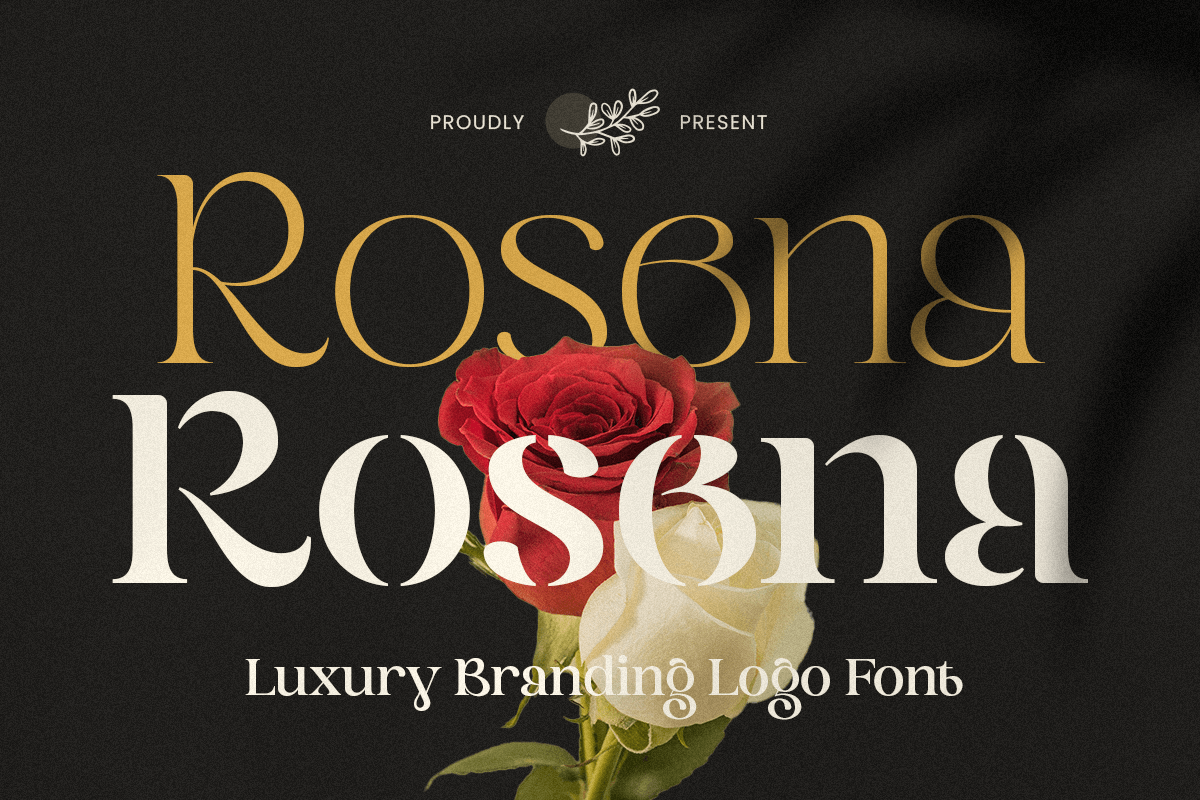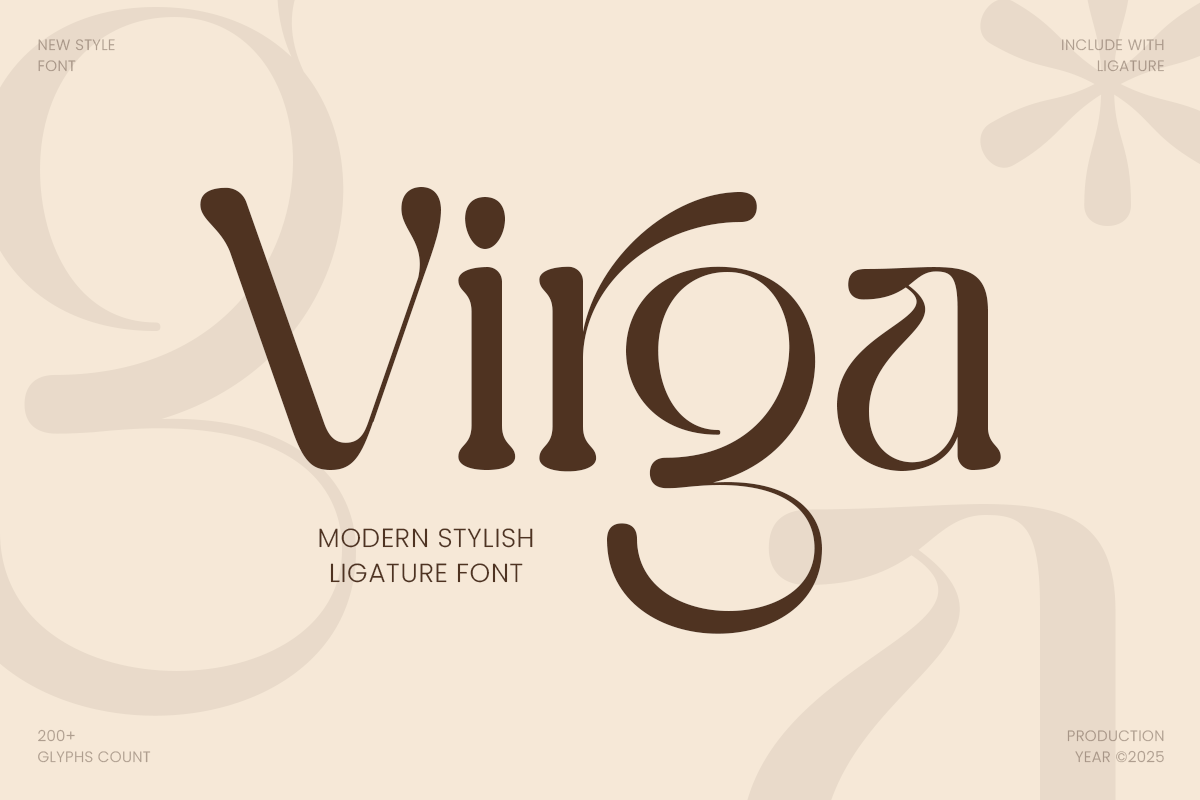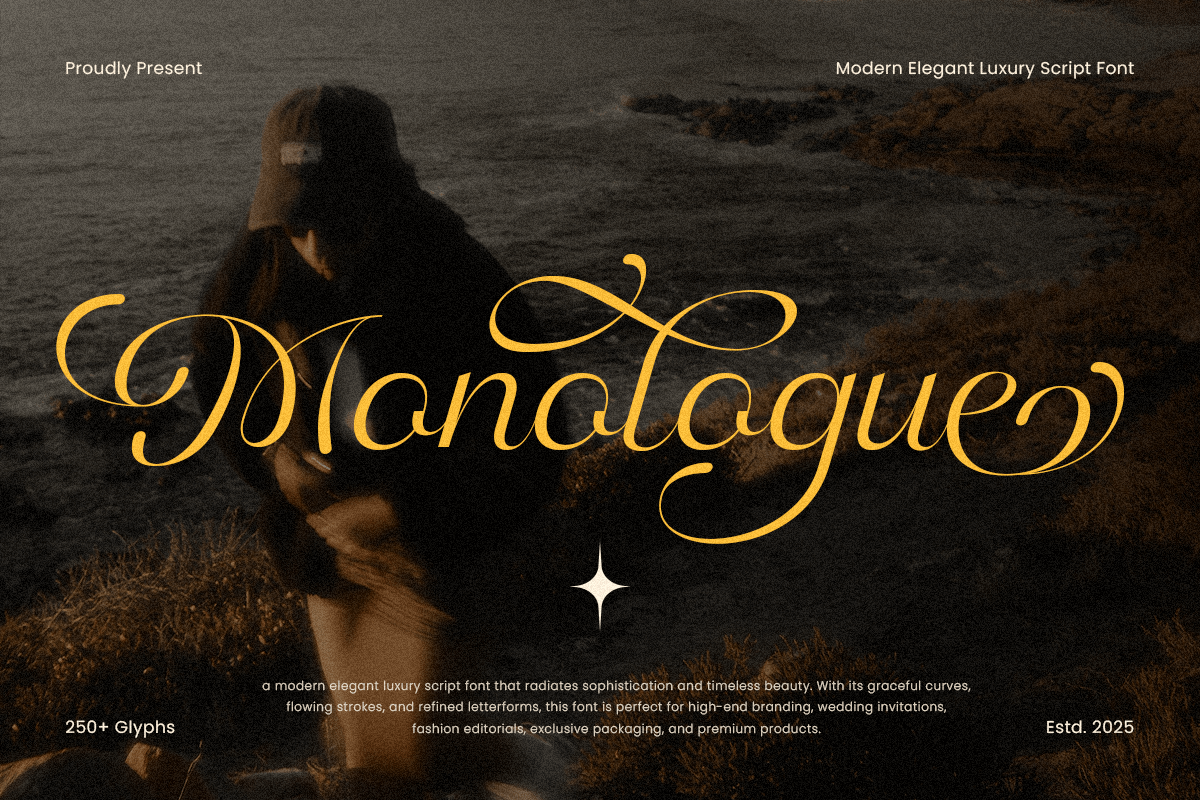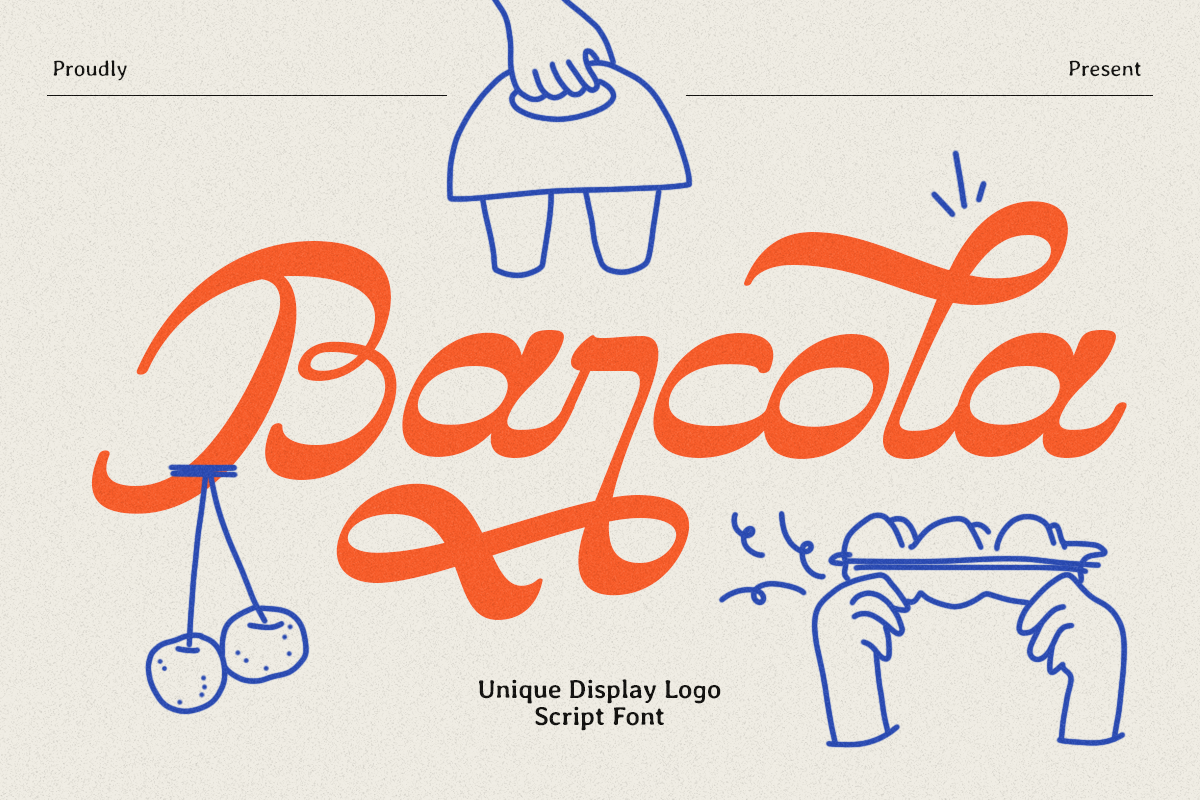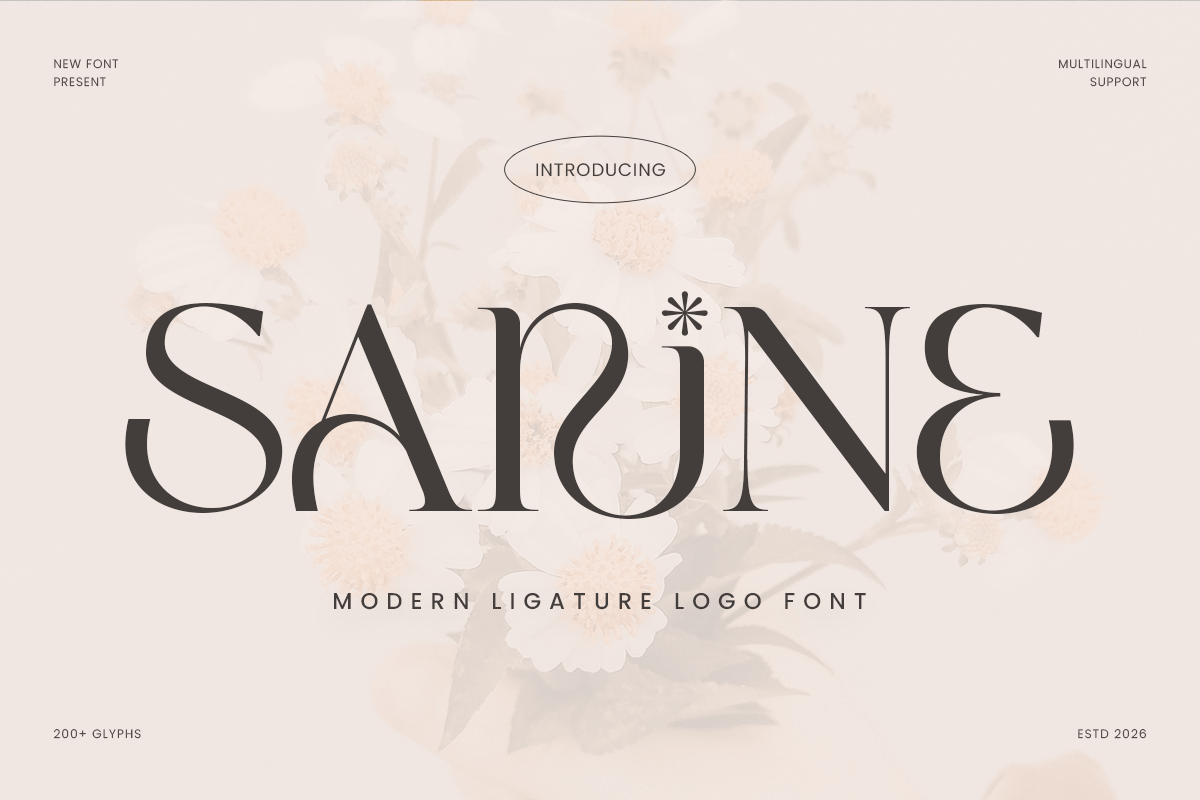
Best Script Fonts for Invitations and Packaging
Discover the best script fonts for invitations and packaging, including elegant options for wedding stationery, beauty labels, perfume branding, and boutique product design.
Best Script Fonts for Invitations and Packaging
The best script fonts for invitations and packaging combine elegance, readability, and personality. They are popular for wedding invitations, beauty labels, perfume boxes, gift tags, boutique branding, and premium product packaging because they create a refined handwritten look. When chosen carefully, a script font can make a design feel more personal, luxurious, and memorable without sacrificing clarity.
Script fonts are especially effective when you want typography to carry emotion. In invitations, they add romance, grace, and a sense of occasion. In packaging, they create a signature-style identity that feels premium and expressive. Whether you are designing wedding stationery, product labels, or luxury branding materials, the right script font can instantly elevate the entire visual system.
What Makes a Good Script Font for Invitations and Packaging?
Not every script font works well in real design applications. The best script fonts for invitations and packaging need more than beauty alone. They should also support readability, balance, and flexibility across print and digital layouts.
A strong script font usually offers:
• smooth strokes and graceful rhythm
• enough detail to feel expressive without becoming hard to read
• clean spacing for names, titles, and short phrases
• good visual pairing with serif or sans serif fonts
• a tone that matches the brand or event mood
For invitations, script fonts work best when used for names, headings, monograms, or special lines. For packaging, they are often most effective for logos, product names, short descriptors, or premium signature details. In both cases, readability matters. A font may look beautiful in isolation but fail if it becomes too decorative at smaller sizes.
Why Script Fonts Work So Well for Invitations and Packaging
Script fonts bring a human touch to design. Their flowing lines and handwritten character can make a layout feel intimate, artistic, or luxurious. That is why they are widely used in wedding invitation design, feminine branding, perfume packaging, cosmetic labels, boutique boxes, and gift-oriented products.
For invitations, script fonts help communicate mood. A formal script can feel timeless and elegant. A softer handwritten script can feel warm and romantic. A bold modern script can feel stylish and fashion-forward.
For packaging, script fonts are often used to create distinction. They can turn a plain product label into something that feels custom, premium, and emotionally appealing. In highly visual categories like beauty, fragrance, gifts, and handmade products, script typography can strengthen both brand identity and shelf appeal.
Best Script Fonts for Invitations and Packaging
Below are several Sensatype Studio font options that work well for invitations, labels, branding, and packaging. Some lean more toward expressive script styling, while others bring a refined luxury-branding feel that still supports script-inspired presentation.
Barcola – Unique Display Logo Script Font
Barcola is a bold and expressive display script font designed to make typography feel distinctive and memorable. It has strong movement, confident strokes, and a handcrafted personality that helps designs stand out quickly.
Barcola is a strong choice when you want a script font that feels energetic and character-rich rather than delicate or traditional. It gives layouts a more branded and statement-driven appearance, which makes it useful for packaging that needs shelf impact.
Monologue – Modern Elegant Luxury Script Font
Monologue is the closest match for users searching for an elegant script font for invitations and luxury packaging. Its refined flow, smooth strokes, and signature-style construction give it a polished, premium look that feels ideal for beauty, wedding, and feminine branding.
Monologue stands out because it balances sophistication with readability. It feels decorative, but it still maintains enough structure to work across a variety of premium applications. For romantic or luxury-focused projects, it is one of the strongest options in this set.
Rosena – Premium Stencil Branding Logo Font
Rosena is not a traditional script font, but it can still support invitation and packaging systems when the goal is premium branding rather than purely handwritten style. Its polished letterforms and upscale visual tone make it useful in luxury packaging, especially when paired with script accents elsewhere in the layout.
Rosena fits best when you want a clean luxury feel with more control and less ornament. It may not be the first choice for romantic invitation names, but it can work beautifully for brand names on packaging that needs a refined and exclusive tone.
Virga – Modern Stylish Ligature Font
Virga - Modern Stylish Ligature Font 1.2.png
Virga brings together contemporary elegance and stylish ligature details. While it is not a classic calligraphic script, it offers the kind of graceful visual rhythm that works well in high-end branding and sophisticated packaging projects.
Virga is best used when you want a modern luxury look with subtle decorative character. It has enough flair to feel special, but it remains more controlled than highly swashed script fonts. That makes it especially useful in packaging where readability and polish need to work together.
Sarine – Modern Classy Ligature Logo Font
Sarine - Modern Ligature Logo Font 1.png
Sarine is a classy ligature-based font that brings sophistication, rhythm, and a clean premium feel. Like Virga, it sits between elegant branding typography and script-inspired styling. It works best for designers who want softness and refinement without using a highly elaborate handwritten script.
Sarine is a practical option for packaging and branding because it feels modern and elevated while staying clean enough to reproduce well across labels, boxes, tags, and digital brand touchpoints.
FAQ
Q: What are the best script fonts for invitations and packaging?
A: The best script fonts for invitations and packaging are fonts that combine elegance, readability, and strong visual personality. They should look beautiful in names, logos, labels, and headings while still remaining clear enough for practical design use.
Q: Are script fonts good for wedding invitations?
A: Yes. Script fonts are one of the most popular choices for wedding invitations because they create a romantic, graceful, and personal tone. They are especially effective for names, monograms, and headline text.
Q: Can script fonts be used for product packaging?
A: Yes. Script fonts can work beautifully for product packaging, especially in beauty, fragrance, gift, and boutique branding. The best results come from choosing a script font that stays readable and pairing it with a clean supporting font.
Q: What is the best script font for luxury packaging?
A: For luxury packaging, the best script font is one that feels refined, polished, and premium rather than overly casual. Signature-style fonts and elegant modern script fonts are especially effective for perfume, skincare, and boutique products.
Q: How do I choose a script font for labels?
A: Choose a script font with balanced detail and good legibility. For labels, avoid fonts that become too complex at small sizes. Use script for the brand name or product title, then pair it with a serif or sans serif for supporting text.
The best script fonts for invitations and packaging do more than decorate a design. They shape perception, communicate mood, and help a brand or event feel more memorable. Whether you want a romantic wedding invitation, a feminine beauty label, a premium perfume box, or a boutique product identity, the right script font can add softness, elegance, and emotional impact.
Among the options listed here, Monologue is the strongest fit for classic invitation and luxury packaging use. Barcola offers more expressive personality for bold branding. Virga and Sarine are strong choices for modern feminine packaging, while Rosena supports a polished high-end visual system when you want more structure than a traditional script.